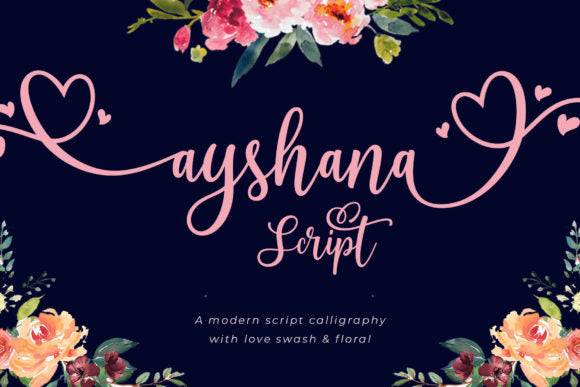
Ayshana Script Font for Feminine Branding and Social Media Graphics
Ayshana Script is a beautifully flowing script font designed to enhance feminine branding and elevate social media graphics. Its smooth curves and elegant connections make it ideal for content creators, lifestyle bloggers, and brands with a soft, graceful aesthetic.
This font is perfect for creating standout visual identities, captions, quotes, and promotional materials that resonate with charm, creativity, and stylish appeal.
- Feminine-focused brand designers
- Social media managers and content creators
- Lifestyle bloggers and influencers
- Entrepreneurs designing elegant brand kits
- Designers creating digital and print graphics
- Instagram posts, quotes, and highlight covers
- Elegant logos for lifestyle or beauty brands
- Branded Pinterest pins and social banners
- Wedding and event invitations
- Printable quotes, planners, and journals
- Elegant script style perfect for modern feminine design
- Ideal for digital and printable content creation
- High aesthetic value in minimalistic branding
Q: Is Ayshana Script good for social media branding?
A: Absolutely. It was designed specifically for stylish, feminine branding and is perfect for Instagram, Pinterest, and digital graphics.